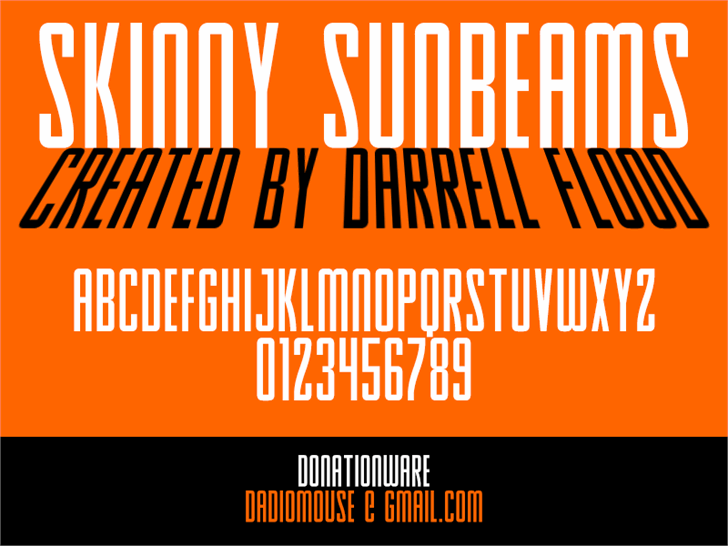
Free Skinny Sunbeams Font
Introducing you to the absolutely beautiful free skinny sunbeams font. Go give some love to Font Space for creating this top-notch font. Showcase your designs like a graphic design pro by adding a new touch with this fancy font.